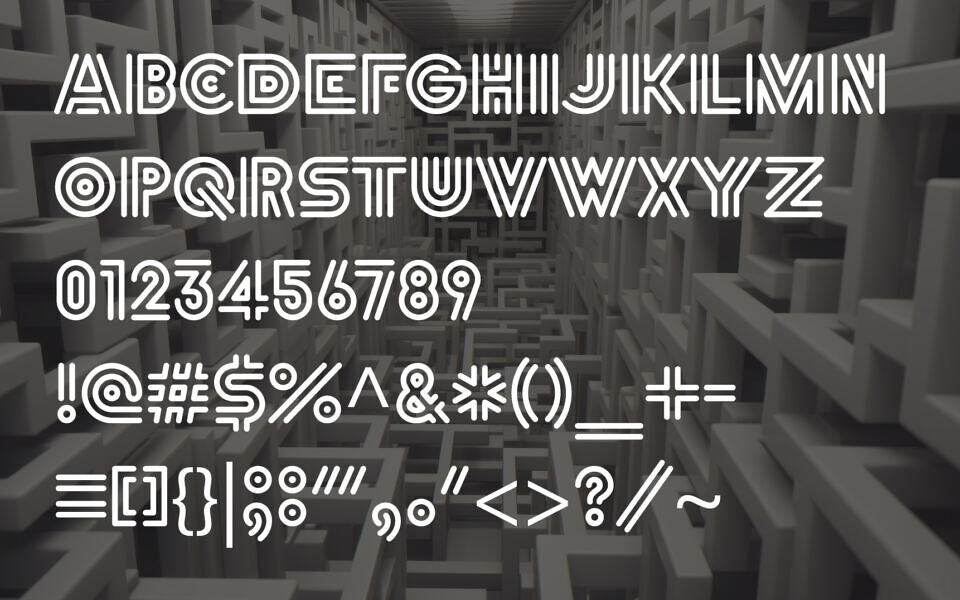
Neonic Font
Neonic Font is a free futuristic display typeface inspired by neon signage and modern sci-fi design. It features clean geometric shapes, rounded corners, and distinctive double-line strokes that create a glowing, electric look.
Ideal for logos, headlines, posters, gaming visuals, tech branding, and cyberpunk themes, Neonic delivers strong visual impact. The font includes uppercase letters, numbers, and symbols, making it perfect for bold, eye-catching designs with a modern, digital aesthetic.